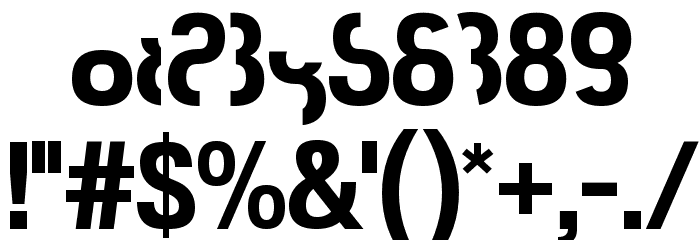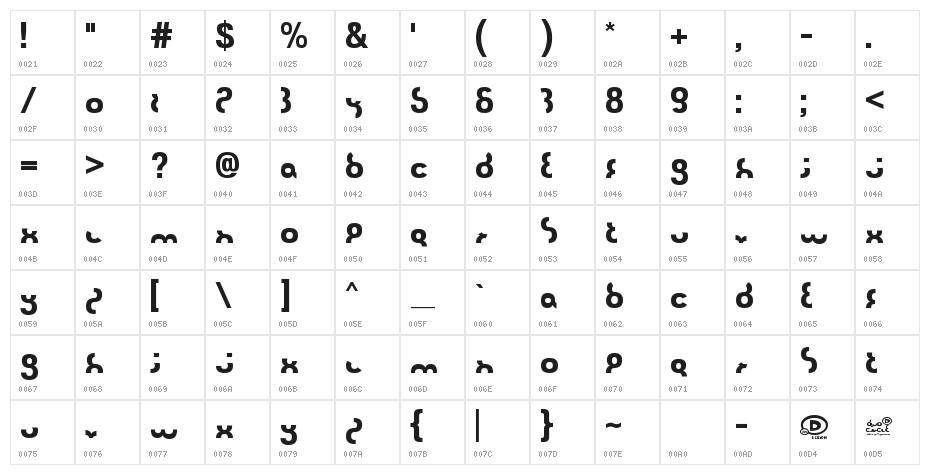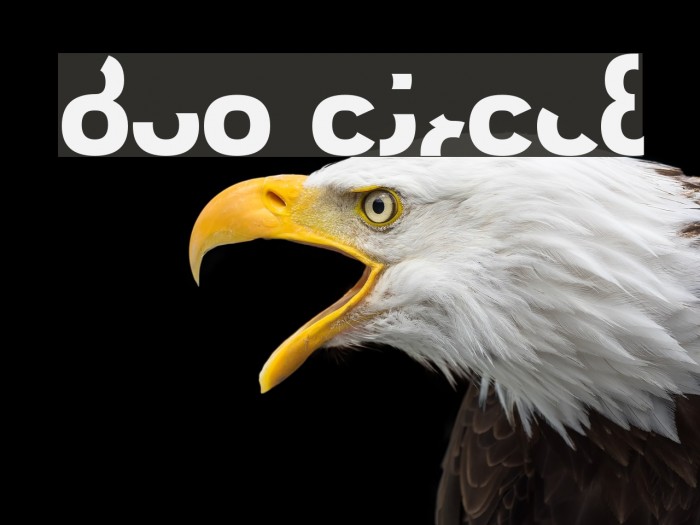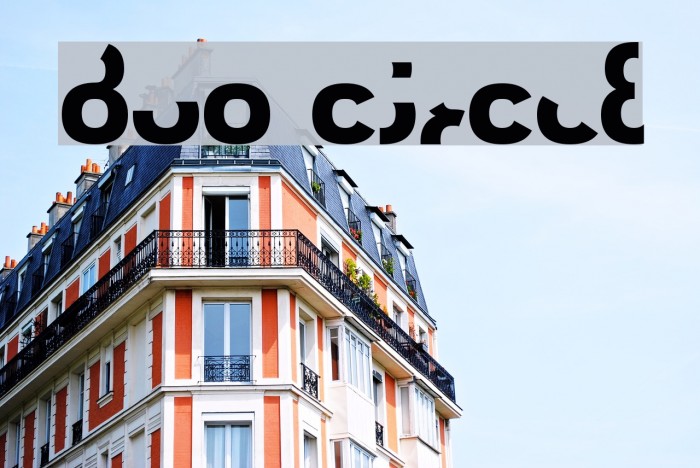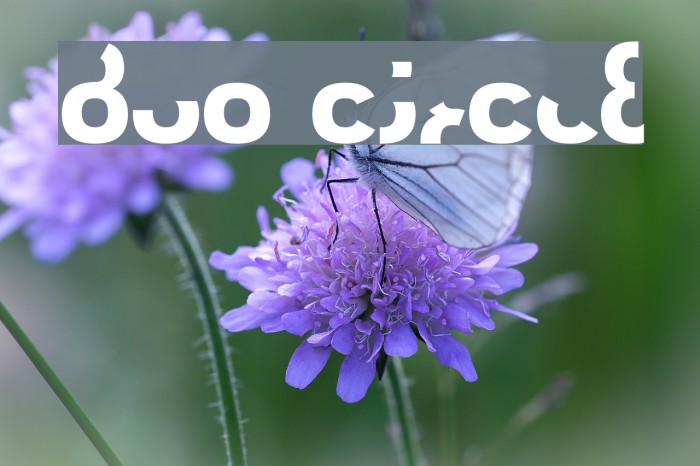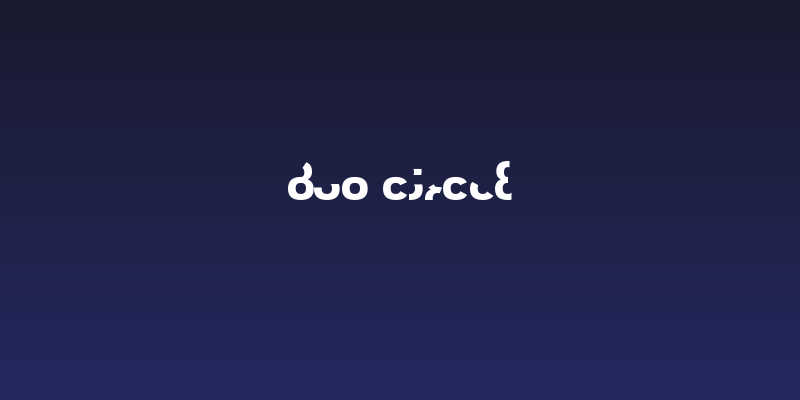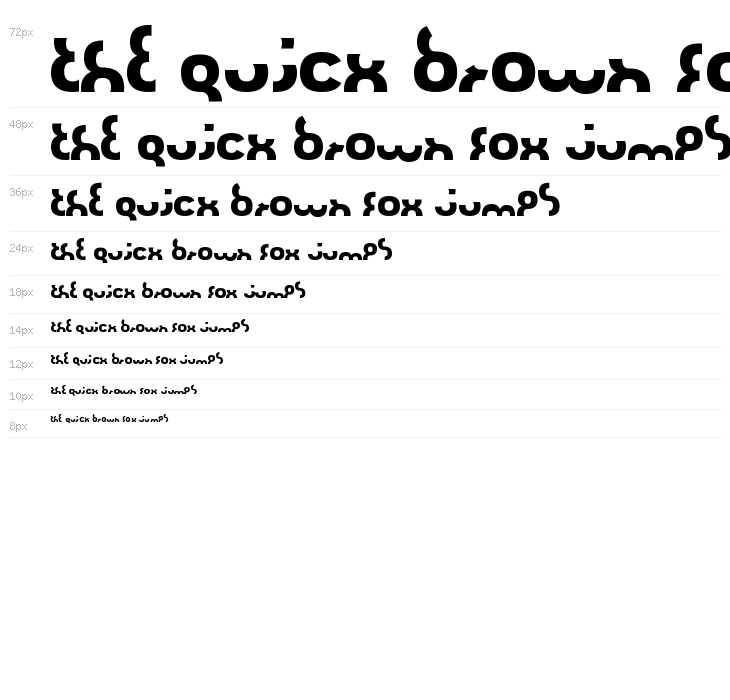
Duo Circle Font
Duo Circle Description
This font features a unique and playful design with a bold, rounded appearance. The characters are crafted with a consistent thickness, giving them a strong and cohesive look. The circular elements within each letter create a sense of movement and dynamism, making it stand out in any design. The font maintains a modern aesthetic while incorporating elements of whimsy and creativity. Its bold nature ensures high readability, even at smaller sizes, while the distinct style makes it suitable for eye-catching headlines and logos. The consistent stroke width throughout the characters adds to its modern appeal, making it versatile for various design projects.
| Proposed Projects | Ideal for branding, advertising, children's books, and creative posters. |